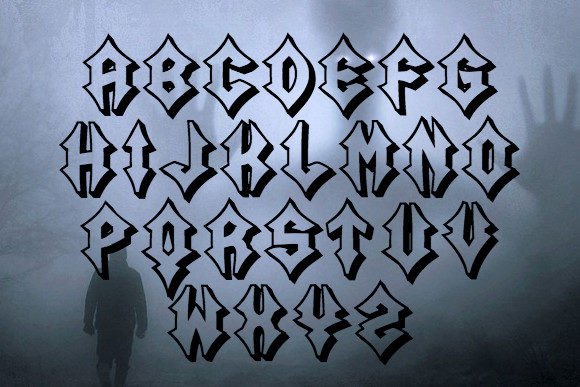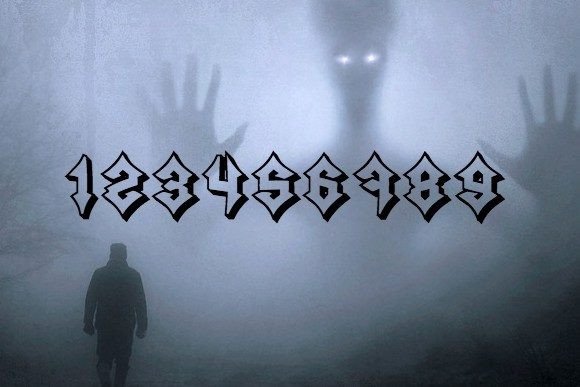
Introduction to Mutant Font
Mutant is an awesome Gothic typography display font with sharp lines and angles.
Use it on your invitations, flyers, posters, shirts, or anything that needs bold and daring typography .
Key Features of Mutant Font
Why Choose Mutant Font?